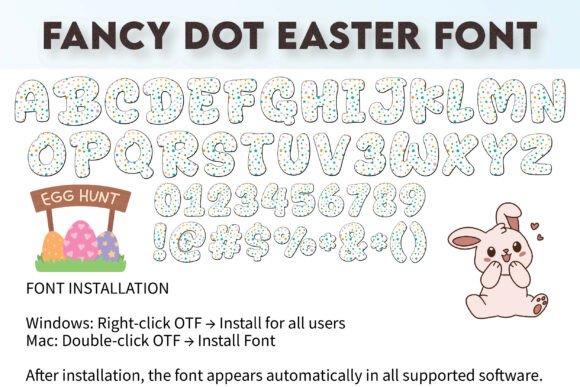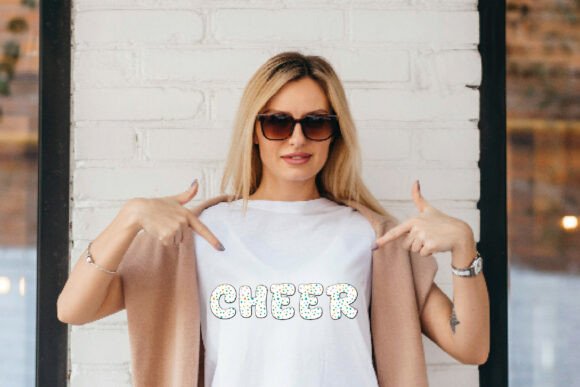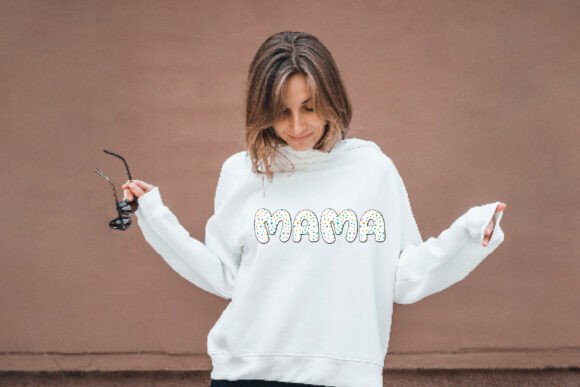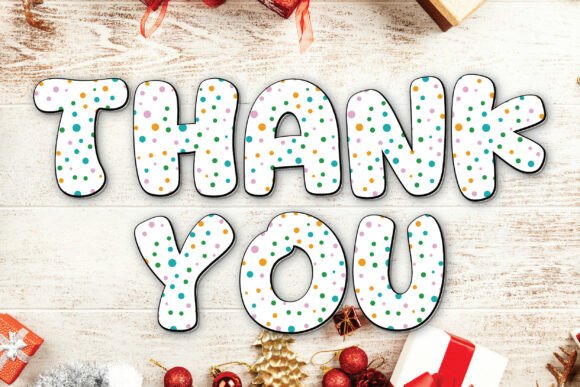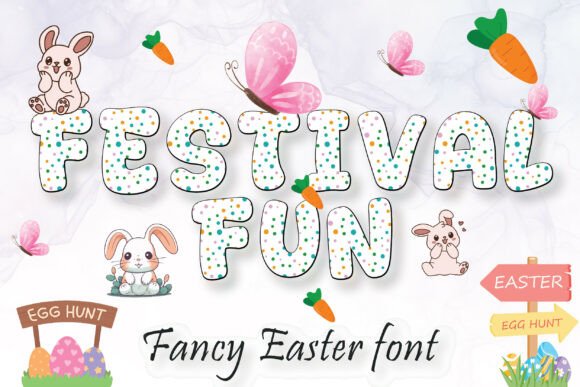
Fancy Dot Easter Font: Add a Playful Spring Touch to Your Designs
Are you looking for a fun and playful font to add a spring touch to your designs? Look no further than the Fancy Dot Easter Font! This adorable font features charming dotted details and a decorative style that’s perfect for Easter and spring-themed projects.
Perfect for Easter and Spring-Themed Projects
The Fancy Dot Easter Font is ideal for a variety of Easter and spring-themed projects, including:
- Easter invitations: Create adorable and eye-catching invitations for Easter parties and events.
- Party decor: Add a playful touch to your party decor with this fun and colorful font.
- Classroom crafts: Use this font to create fun and engaging crafts for your students.
- Kids projects: Perfect for kids’ projects, such as making Easter baskets or creating spring-themed artwork.
- T-shirts: Design fun and colorful Easter-themed t-shirts with this adorable font.
- Stickers: Create cute and colorful stickers for Easter and spring-themed projects.
- Planners: Add a playful touch to your planners and organizers with this fun font.
- Scrapbooking: Use this font to create beautiful and colorful scrapbook pages.
- Sublimation: Perfect for sublimation projects, such as mugs, tumblers, and more.
- Social media graphics: Create eye-catching social media graphics for Easter and spring-themed posts.
Font Details
- Unique and playful design: The Fancy Dot Easter Font features a unique and playful design that’s sure to add a spring touch to your projects.
- Versatile: The Fancy Dot Easter Font can be used for a variety of projects, from Easter invitations to social media graphics.
- High-quality: This font is high-quality and designed to look great in any project.
- Use it with bright colors: The Fancy Dot Easter Font looks great with bright and bold colors, so don’t be afraid to get creative!
- Experiment with different sizes: Try using the font in different sizes to see what works best for your project.
- Pair it with other fonts: The Fancy Dot Easter Font pairs well with other fun and playful fonts, so try experimenting with different combinations.